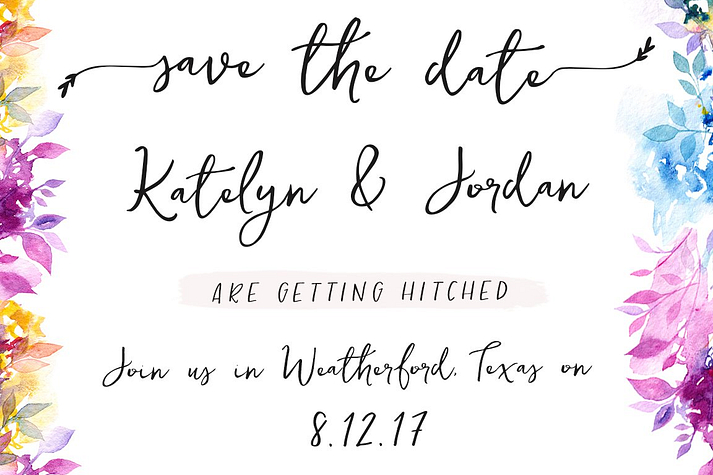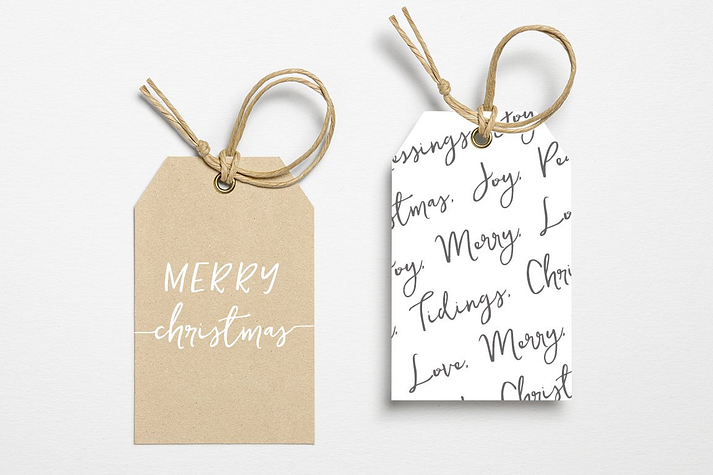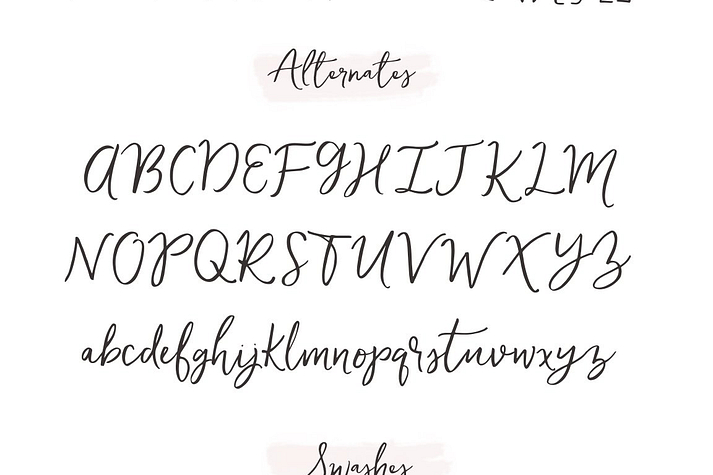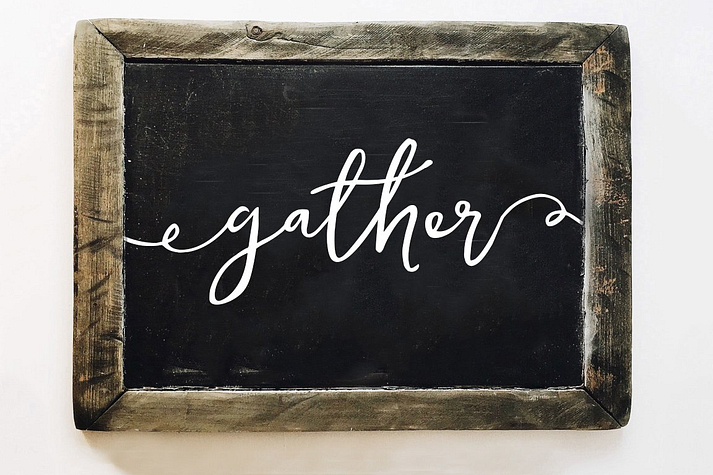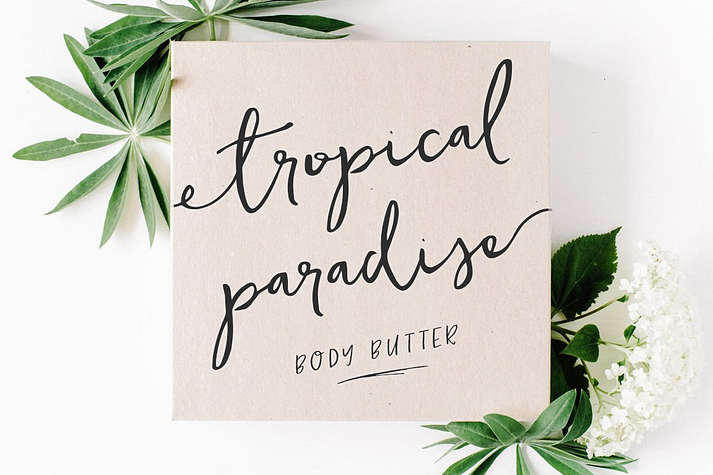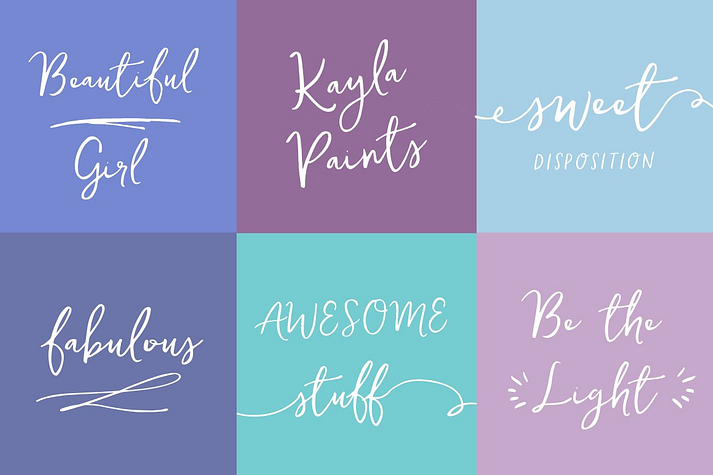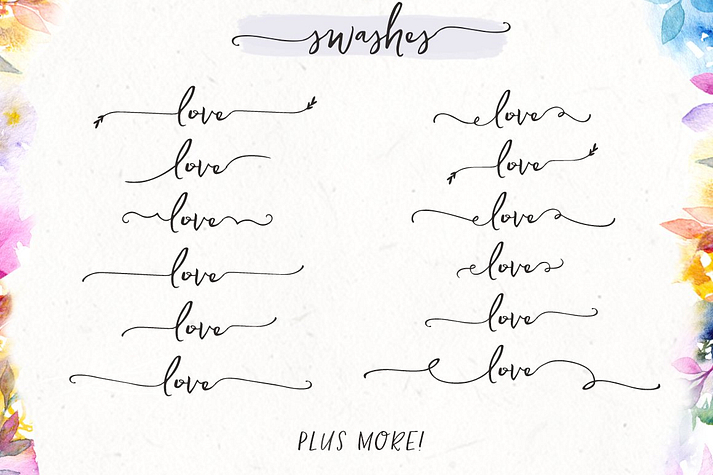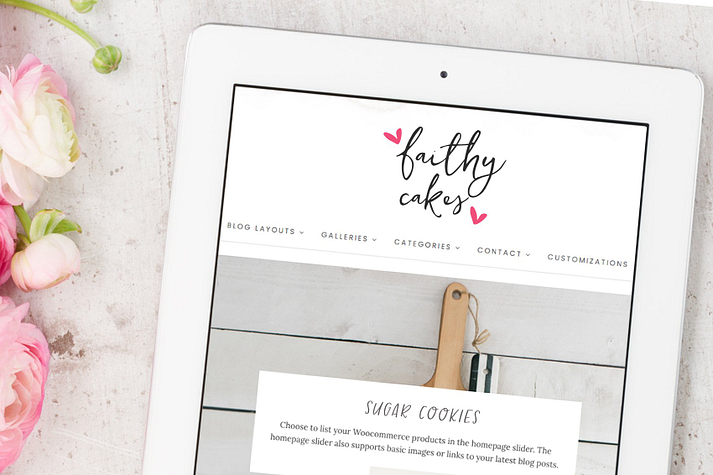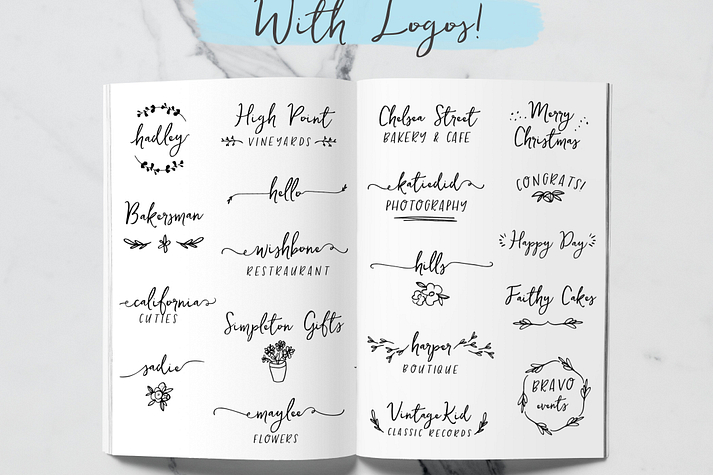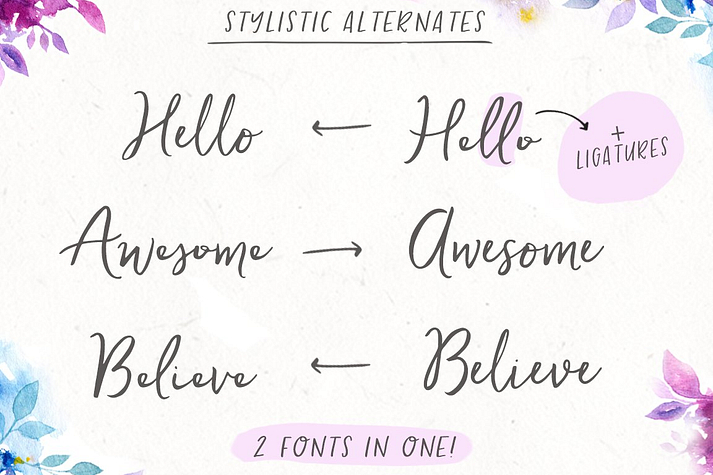
Ditto
Ditto is a modern calligraphy and dingbat font family. This typeface has three styles and was published by Angie Makes.
Introducing Ditto, a lovely font duo with tons of swashes and extras. Perfect for a variety of projects like branding, signage, wedding invitation, farmhouse signs, and more. So versatile with tons of character!
• Ditto Regular - A lovely, hand drawn font with tons of character and swashes galore. Comes as an .otf font file.
• Ditto Alternates - A full set of alternate uppercase and lowercase characters. Comes as an .otf font file.
• Ditto Dingbats - Some fun little doodles and swashes to pair with the fonts for some added flair. Comes as an .otf font file.
Font features include stylistic alternates and natural ligatures.